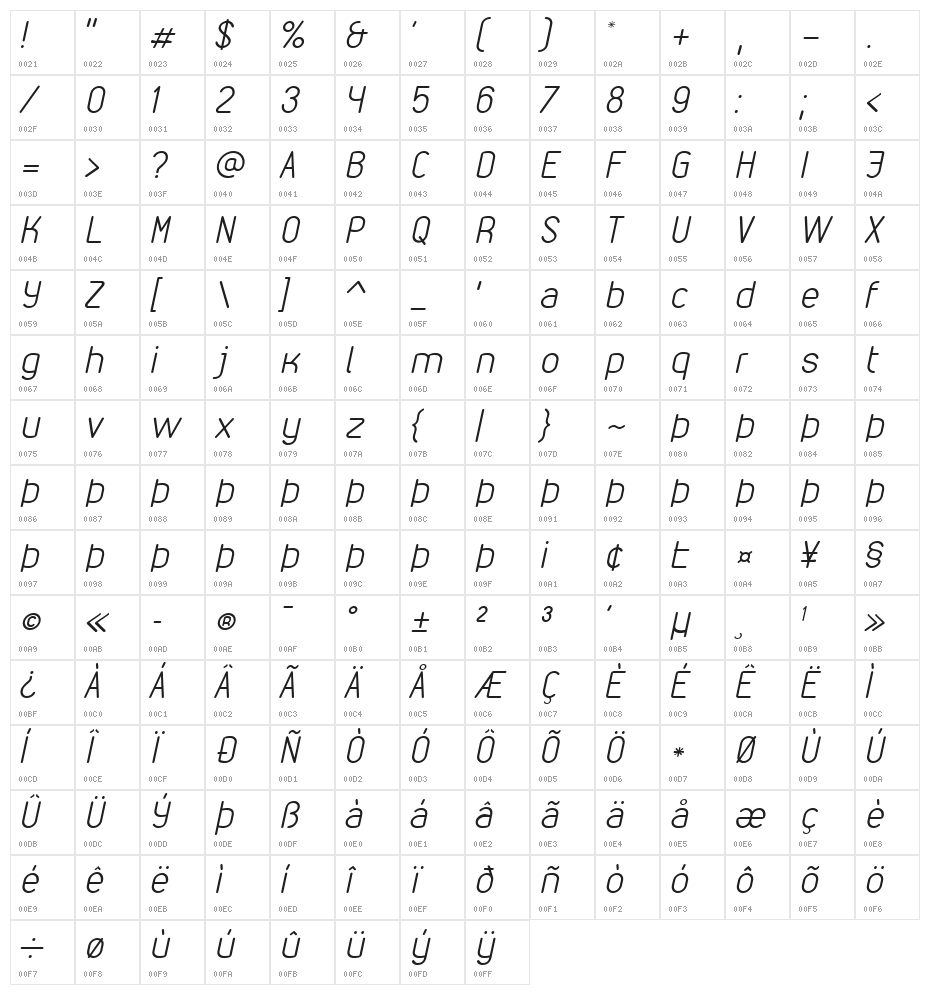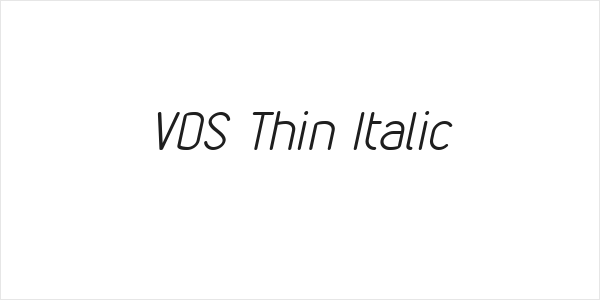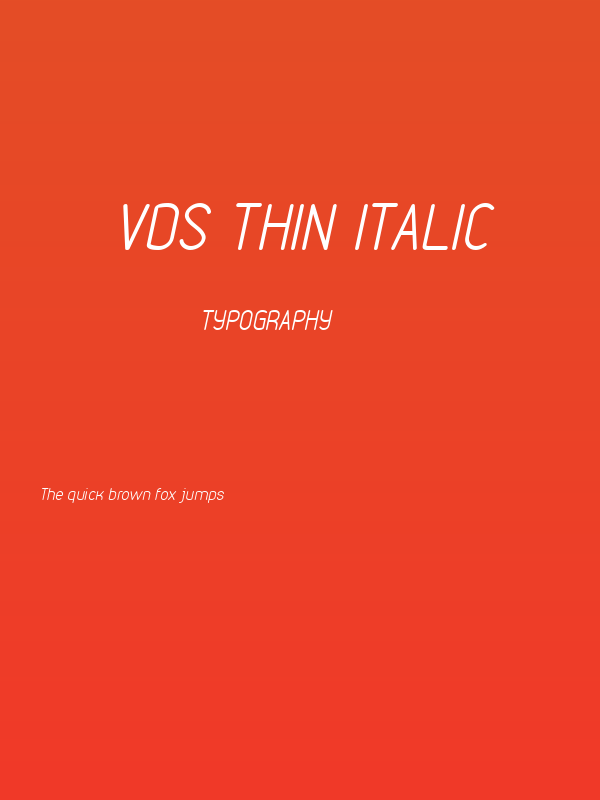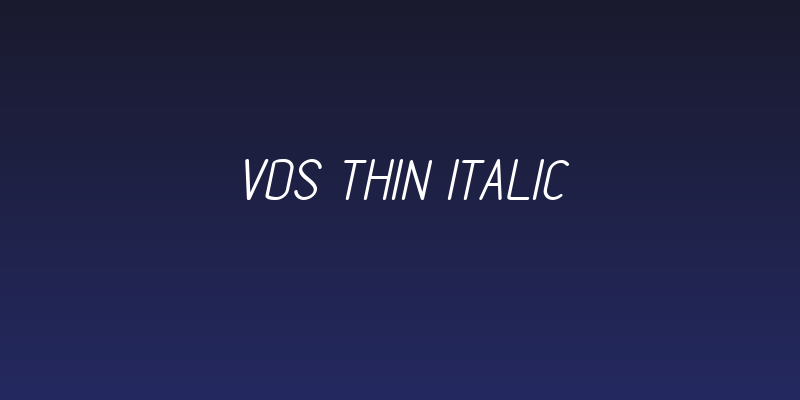
VDS Thin Italic Font
VDS Thin Italic Description
This font features a sleek and modern design with a thin, italicized style that adds a sense of elegance and fluidity to the text. The characters are slightly elongated, giving them a sophisticated and contemporary appearance. The rounded edges and smooth curves contribute to its friendly and approachable look. The font maintains a consistent stroke width throughout, which enhances its readability while retaining a stylish flair. Its clean and minimalist aesthetic makes it suitable for a variety of design applications, from digital interfaces to print media. The font's italic nature adds a dynamic and lively touch, making it ideal for projects that require a sense of motion or emphasis.
| Proposed Projects | Ideal for branding, digital interfaces, fashion magazines, and modern advertising. |